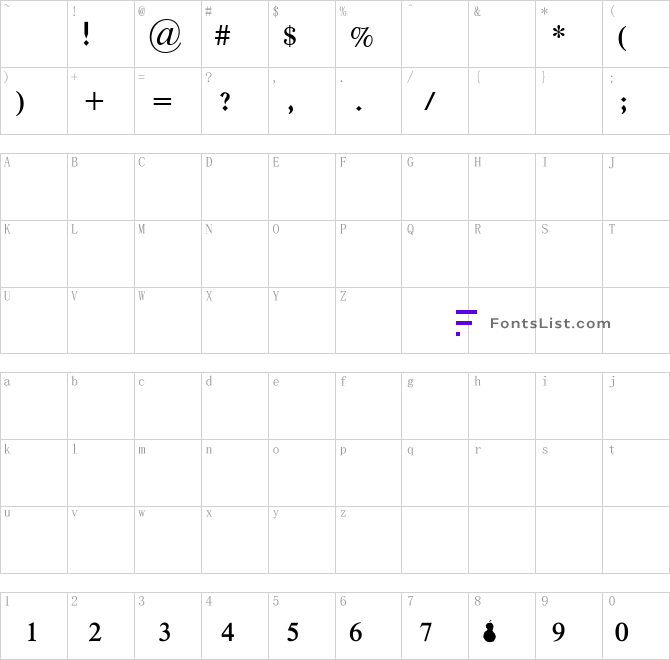
Amnon-Fruit.ttf is a very beautiful artistic font, Amnon-Fruit.ttf is widely used in the design and printing of various books and pictures,Amnon-Fruit.ttf has a strong visual impact,Amnon-Fruit.ttf is a commonly used font in newspapers, magazines and books, and is used in posters, e-commerce Poster design, store design, logo design, font design and other fields.Amnon-Fruit.